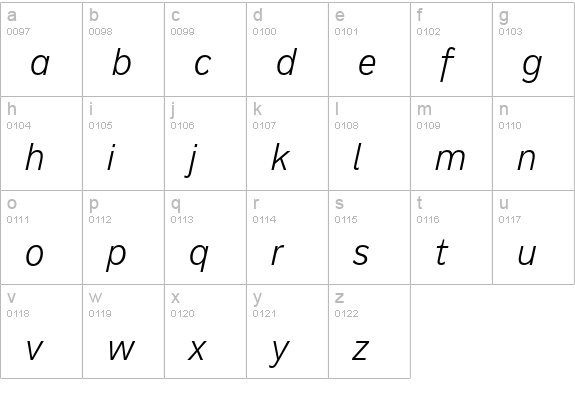
Americane Light Italic is a refined, elegant, italic variant in the Americane typeface family \xE2\x80\x94 well suited to elegant body text, refined sub-headings, and luxury branding.
Americane Light Italic font exudes a sense of elegance and sophistication with its delicate letterforms and subtle slant. Perfect for adding a touch of refinement to any design project, this font is ideal for use in editorial layouts, branding materials, and more. Its light weight and italic style create a sense of grace and fluidity, making it a versatile choice for both print and digital applications. Best of all, Americane Light Italic font is available for free download at FontsMarket.com. This means you can easily incorporate this stylish typeface into your projects without any cost, making it a valuable addition to your font collection. Don't miss out on the opportunity to enhance your designs with the timeless beauty of Americane Light Italic font.